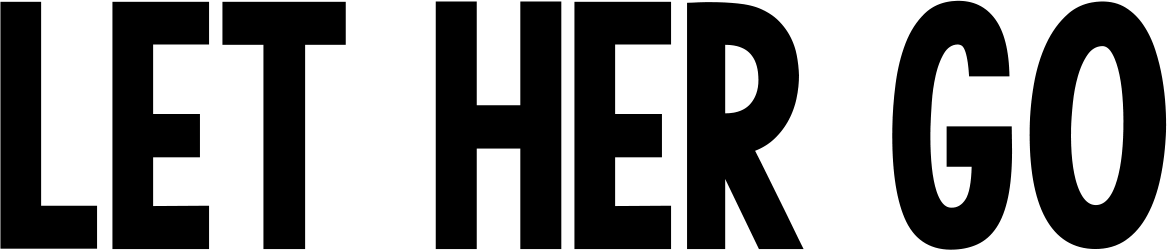
KG Let Her Go Font
Designed byKimberly Geswein
Combine your typography with a friendly touch as much as possible, this KG Let Her Go font, while showing off its casual tall, and modern appearance, also gets a trustworthy atmosphere. This sans serif font with three different versions can bring flexibility in designing many posters, headlines, product packaging, and more, despite the lack of lowercase letters.